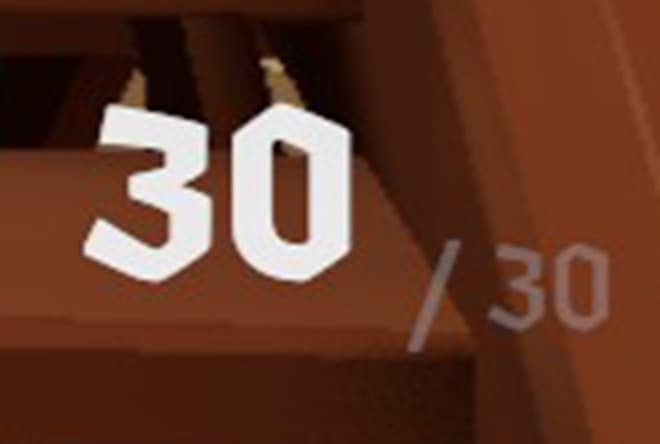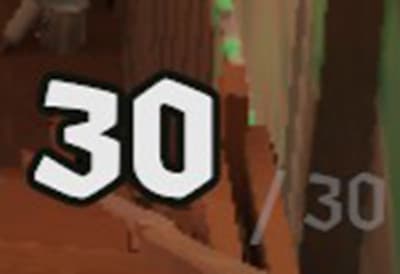
Stylized Font for Ammo Counter — hud for Deadlock
Replaces the font of the Ammo Counter from Default to numericOracle. Will Update once Nurse Harrow Releases! It is an easier font to read in my opinion and gets the ammo counter to be stylized like everything else on the hud. Was designed for personal use to use along side Budhud. Works with QOL Lock, needs to load first before QOL Lock, so make this is pak01 and QOL Lock is pak03 for example. IF YOU DO NOT USE QOL LOCK MAKE SURE YOU DOWNLOAD NO_QOL_LOCK Versions OTHERWISE IT WILL NOT WORK. New Version has the Current Ammo Bold/Highlighted, if you do not like this I still have the non Highlighted/Bold Versions Archived. *Please Note the images have the font enlarged using QOL Lock Ammo Settings, your font will not be bigger with this mod.